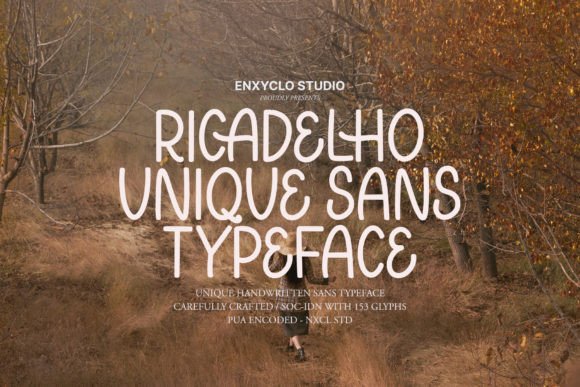
Introducing the exquisite Ricadelho Font, a hand-lettered sans serif masterpiece that embodies a captivating blend of simplicity and uniqueness. As a creation of the renowned Enxyclo, this font is characterized by its playful and distinctive handwritten style, which adds a touch of charm and elegance to any design.
With its modern-classic aesthetics, Ricadelho Font exudes a timeless appeal that makes it suitable for a wide range of applications. Whether you're crafting eye-catching headlines, designing captivating billboards, creating stylish magazines, or developing engaging websites, this font has the power to elevate your creative vision to new heights. Its versatility extends to titles, posters, branding, t-shirt designs, and logos, making it the perfect choice for designers of all levels.
One of the standout features of Ricadelho Font is its ability to retain its magic even in smaller point sizes. This versatility allows you to incorporate it into a diverse range of projects, from large-scale billboards to intricate logos, without sacrificing its enchanting touch.
Step into the world of Ricadelho Font and unleash your creativity. Let your imagination soar as you explore the limitless possibilities of this remarkable font. Its captivating style and endless applications will transform your designs into masterpieces that resonate with your audience.